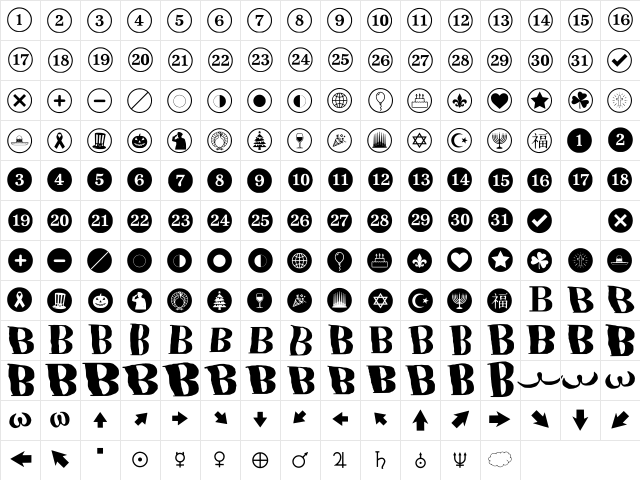
Calendar Symbol Wizard Regular
Design Context for Calendar Symbol Wizard
Calendar Symbol Wizard is a composed and adaptable typeface that performs quietly and consistently across a wide range of design contexts.